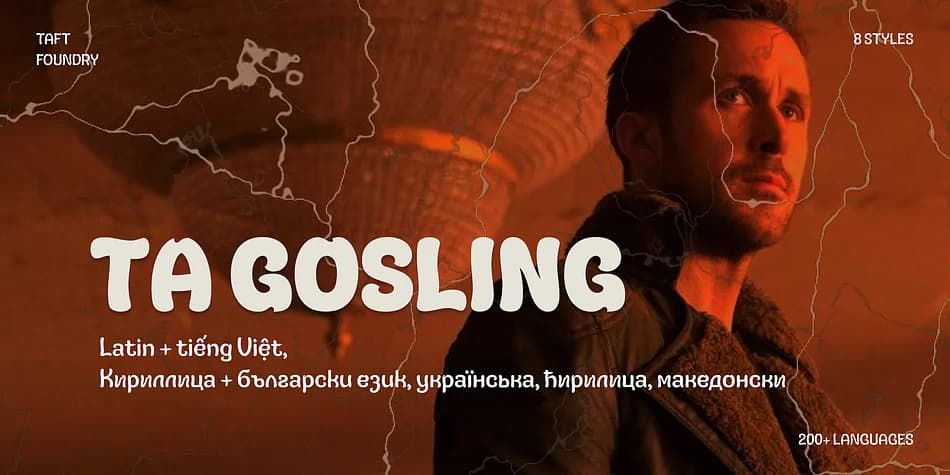
Picture a cinema lobby from the '70s, with hand-painted letters on a marquee. That's the sensibility TA Gosling brings to your designs. Created by TAFT Foundry, this display font blends retro character with bold, readable letterforms that command attention from headlines to large-format print. The eight weight options let you create visual hierarchy across a range of projects: vintage film posters, nostalgic product packaging for indie brands, eye-catching record covers destined for record store windows.
This font handles real-world projects with confidence. Movie studios use it for theatrical campaigns where visual impact is non-negotiable. Small publishers pair it with editorial layouts on literary magazine covers and book jackets. It works equally well on logos for vintage-inspired companies that want personality without sacrificing legibility at small sizes. Restaurants, craft beer labels, and art galleries often turn to fonts like this for their retro-without-trying aesthetic.
Beyond its visual presence, TA Gosling supports Latin, Vietnamese, and Cyrillic scripts, covering over 200 languages. That language coverage means your designs can reach global audiences without dropping the retro charm that makes the font distinctive. All eight styles are available on Creative Fabrica, ready for projects that feel lived-in rather than sterile.
TA Gosling Font is a display font that shines as a display or heading face. Pair it with a clean sans-serif or serif font for body text โ the contrast creates a clear hierarchy while the two styles stay balanced and easy to read.
TA Gosling Font
by TAFT Foundry